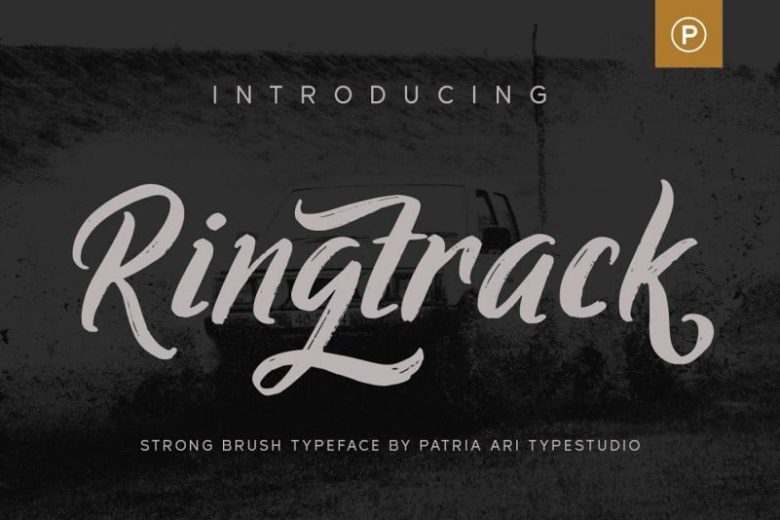
Ringtrack Font
Ringtrack Brush Font is a modern script font designed to make your designs look more attractive. It will be very easy to use and will save you time in designing. Ringtrack is perfect for branding projects, apparel, logo, social media posts, advertisements, product packaging, product designs, label, and any projects that you work on.